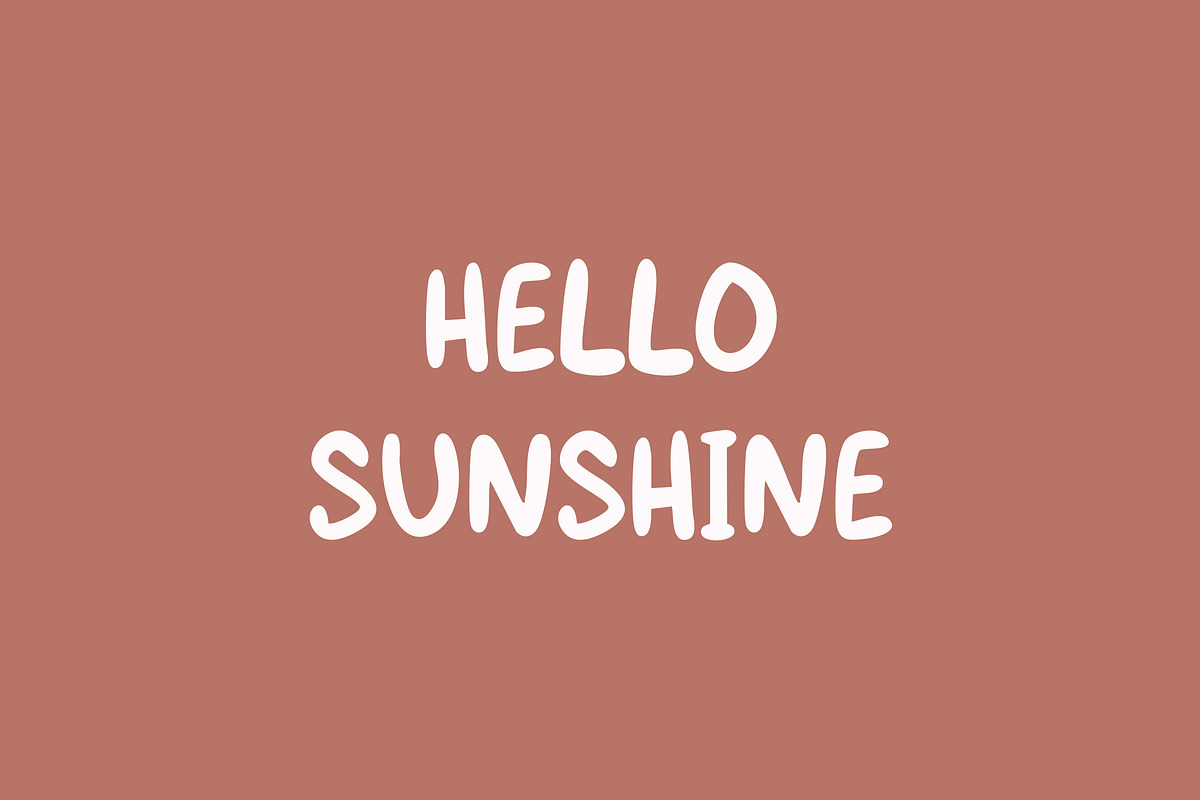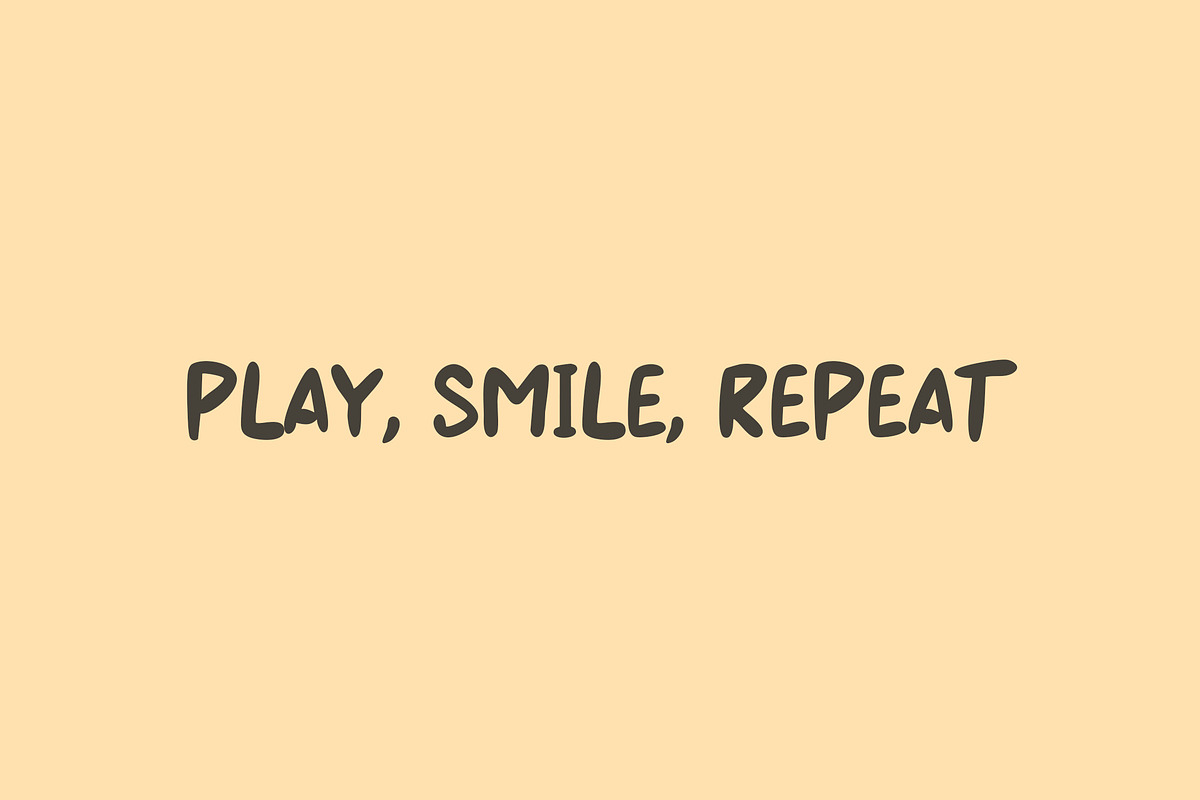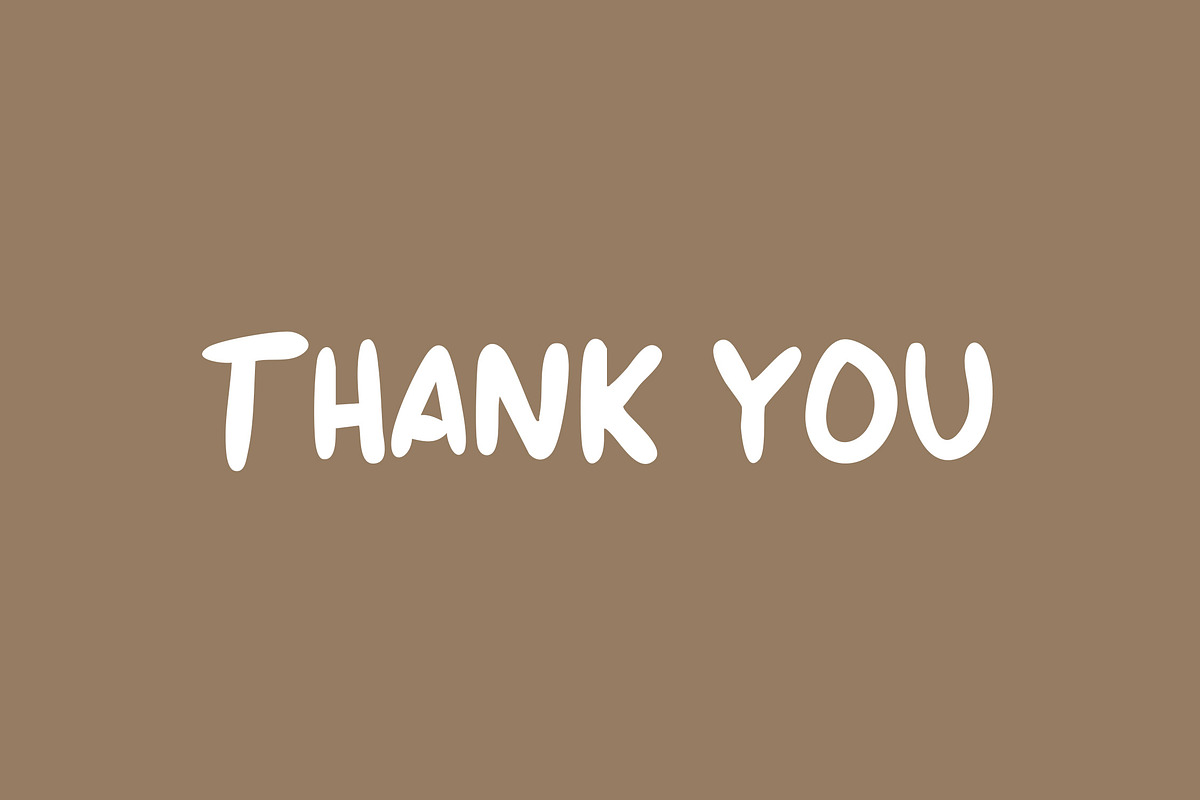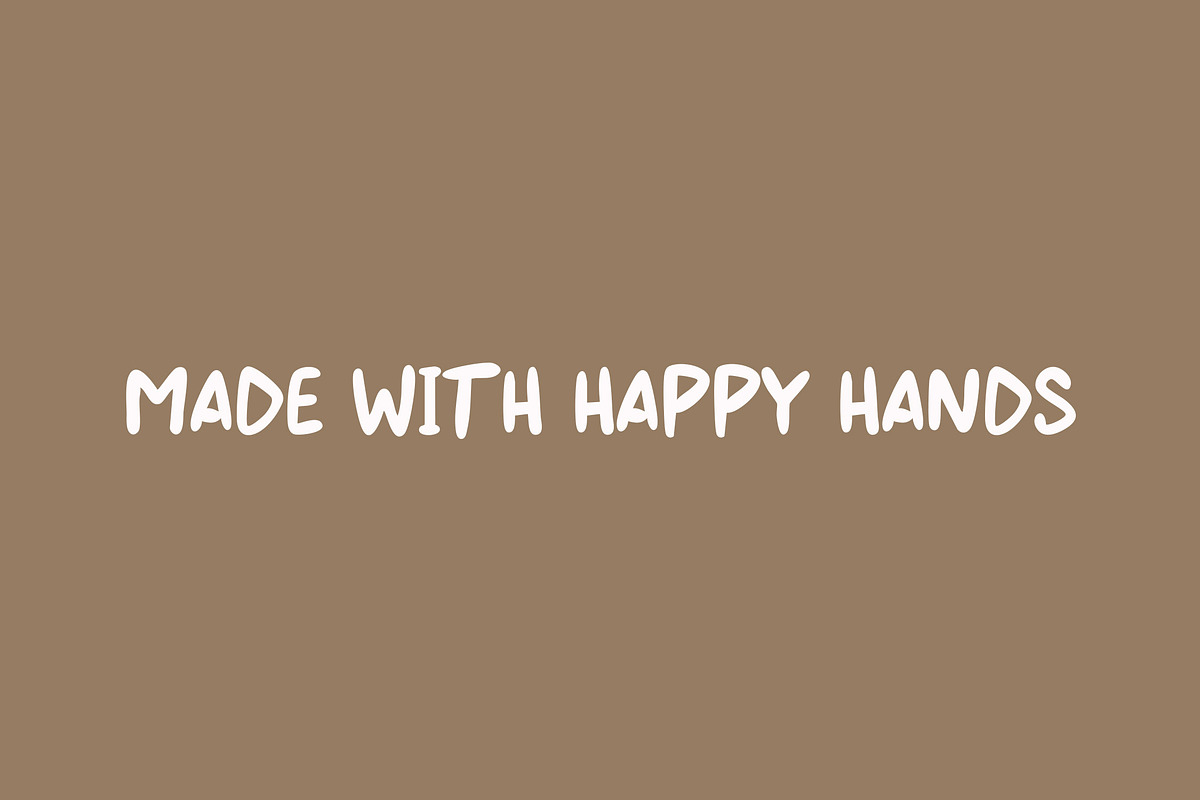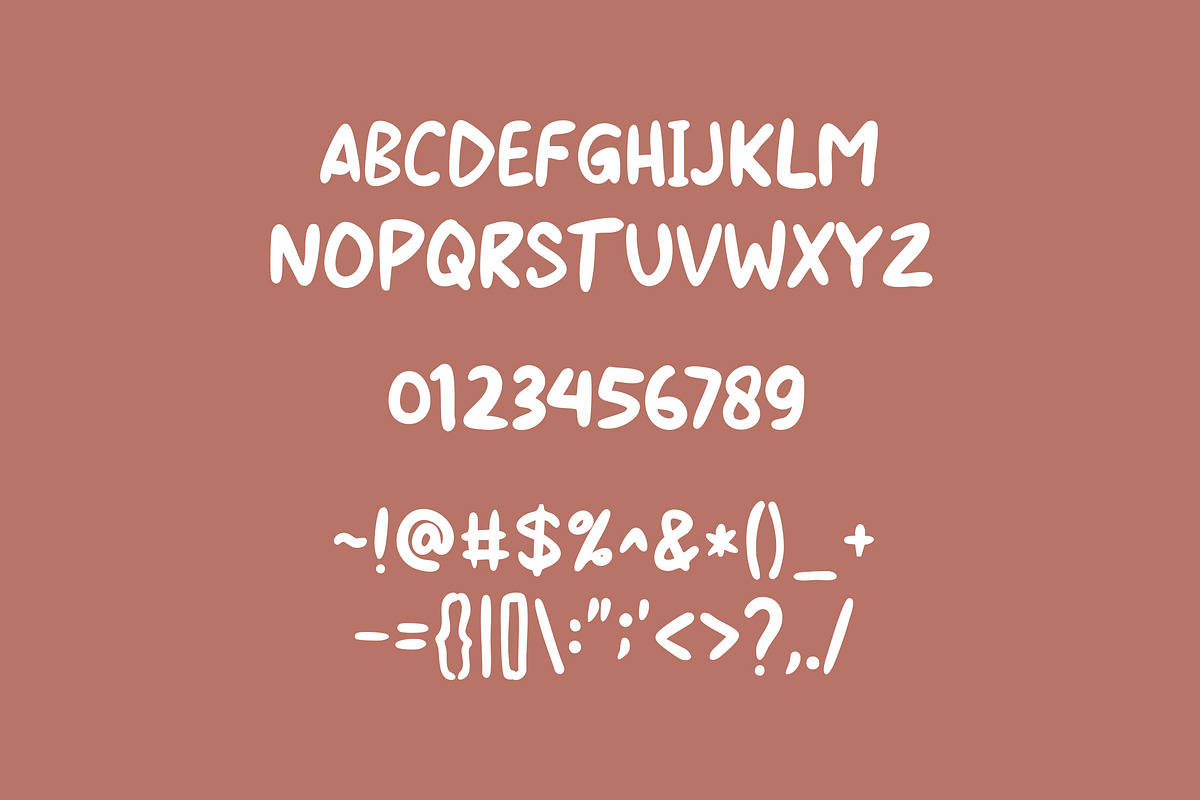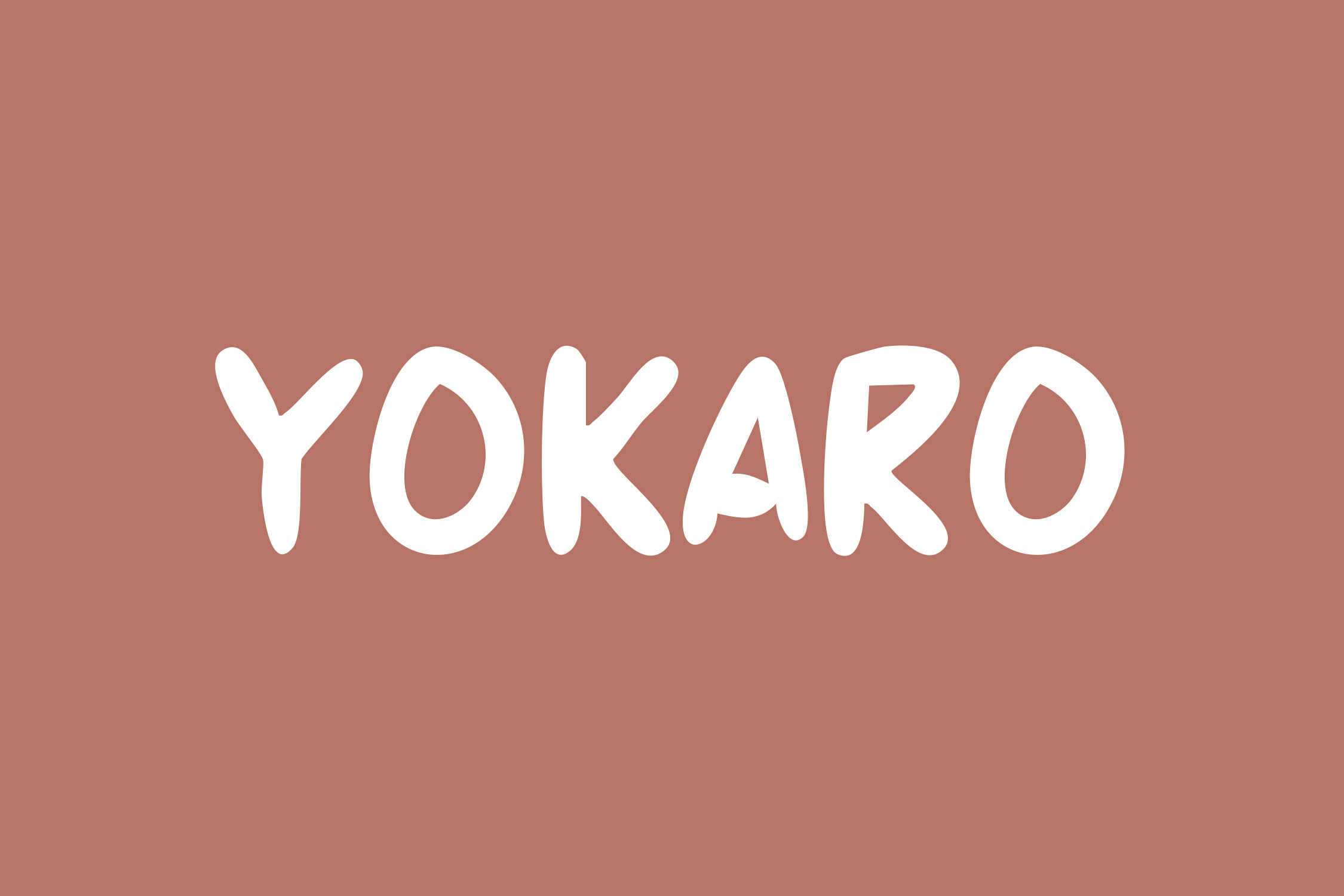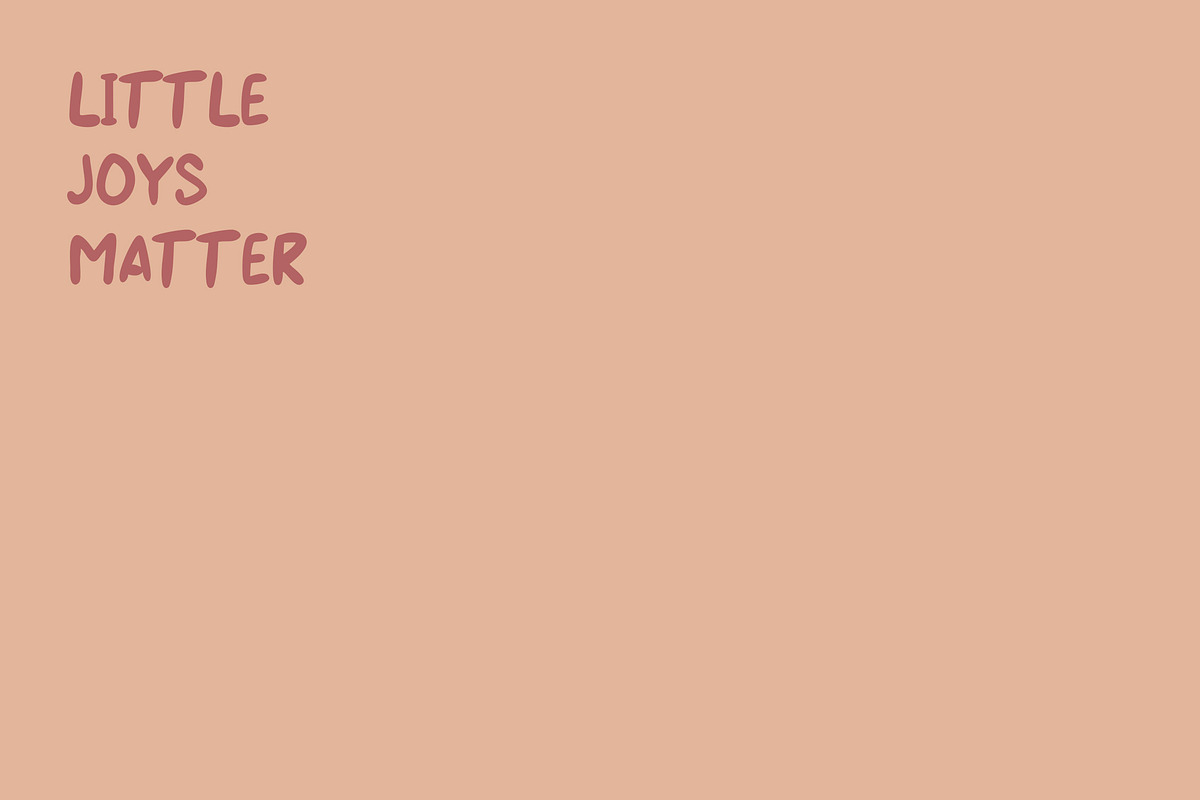
Yokaro Playful Handwritten Font
Yokaro Playful Handwritten Font brings a cheerful, friendly touch to any design. Its lively strokes and natural handwritten feel make it perfect for quotes, branding, kids’ projects, packaging, and social media graphics. Simple, readable, and full of personality—Yokaro adds instant charm to your creative work.